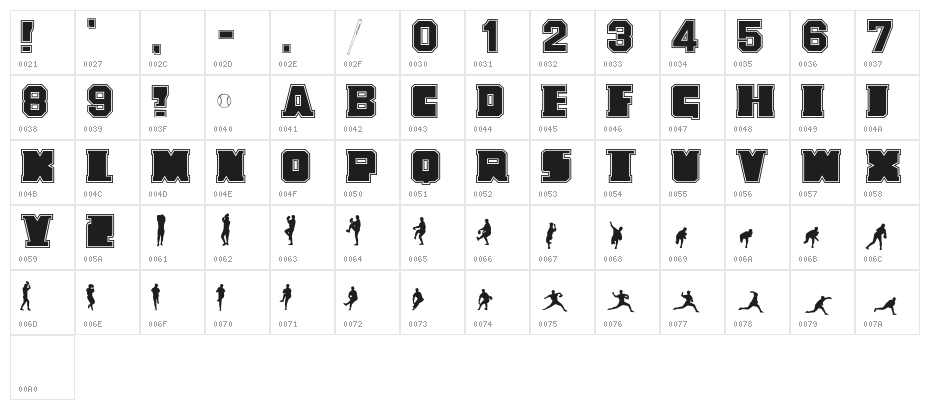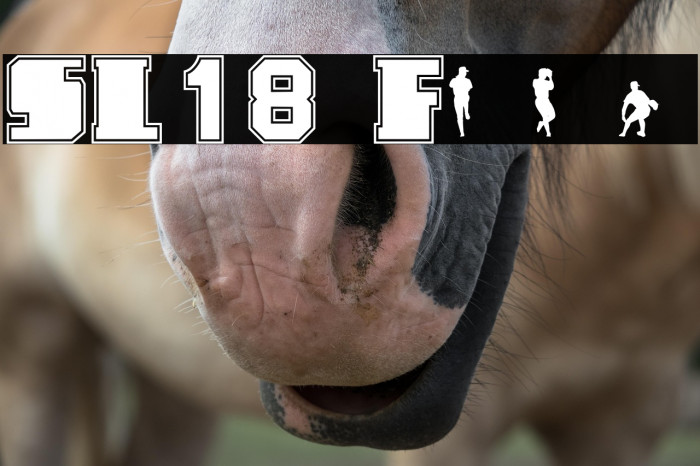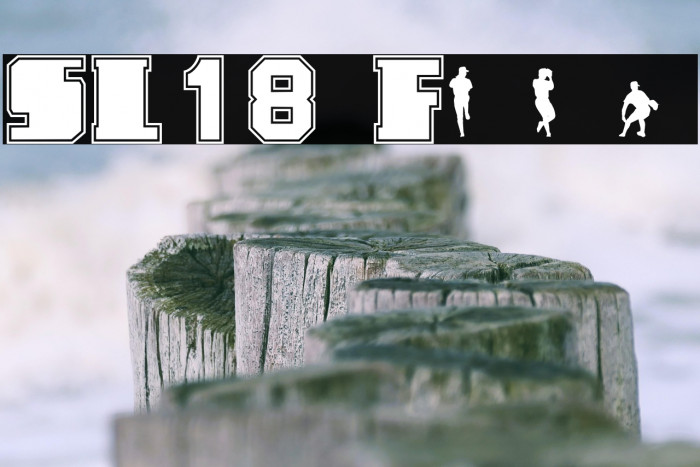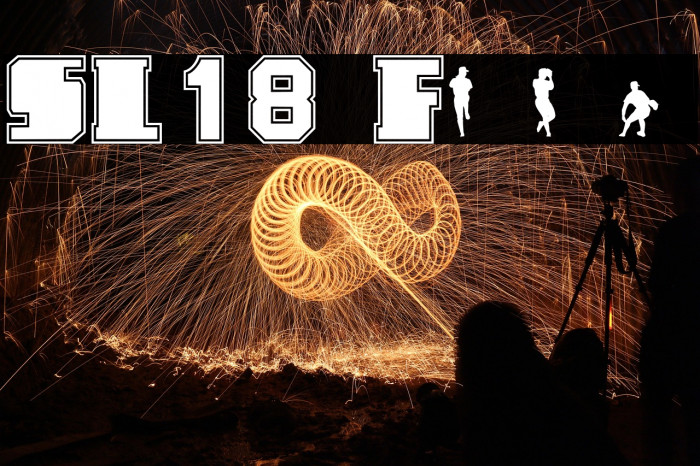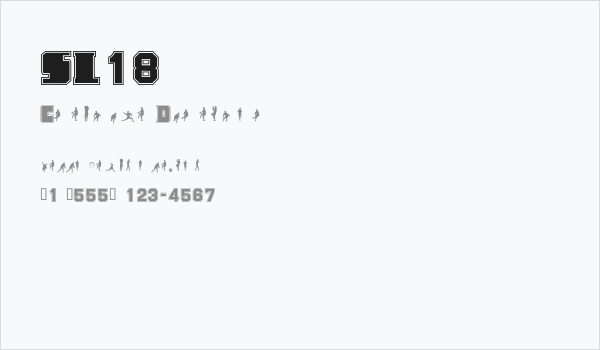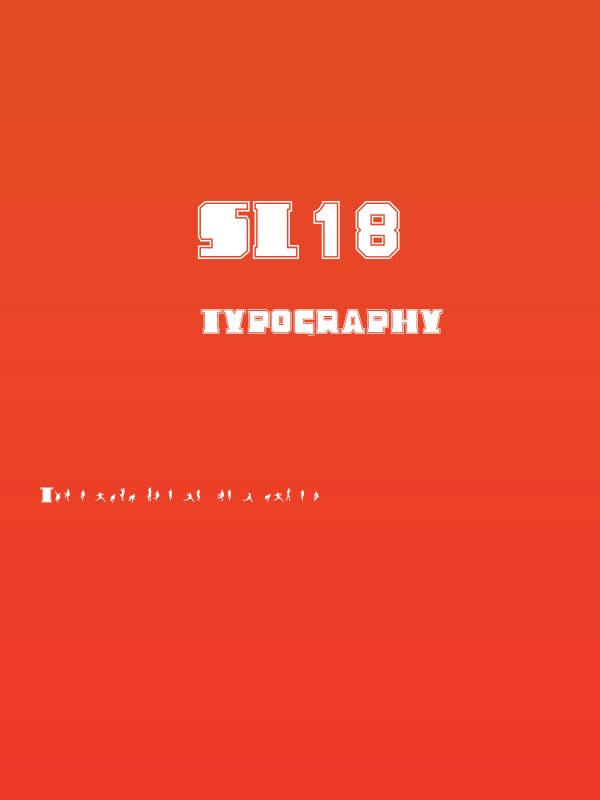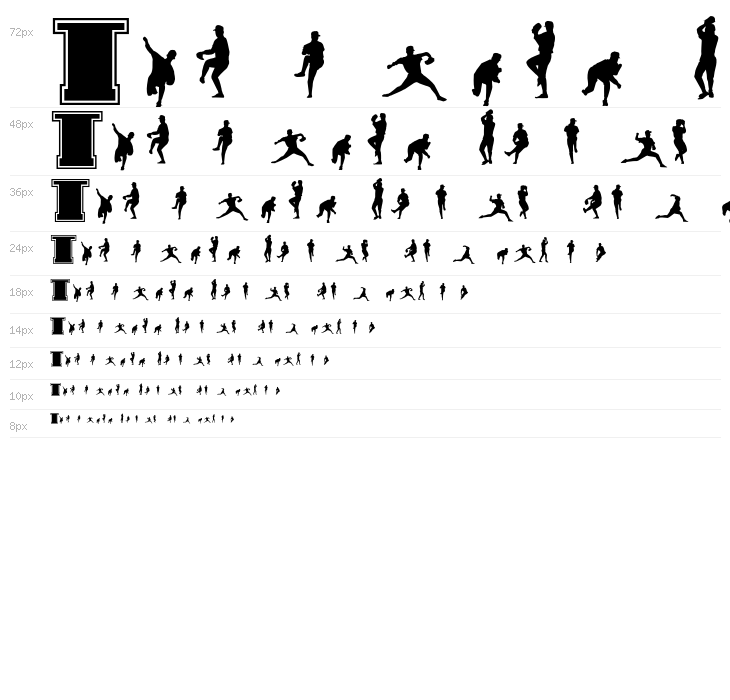
SL18 Font
SL18 Description
This font features bold, blocky characters with a strong, athletic aesthetic. Each letter and number is outlined with a thick border, giving it a three-dimensional appearance. The design is reminiscent of sports jerseys, making it ideal for projects that require a dynamic and energetic feel. The uppercase letters are particularly striking, with a uniform height and width that ensures readability. The numbers follow the same style, maintaining consistency across the font. Special characters are included, matching the bold and impactful style of the alphanumeric characters.
| Overall Style | Sporty, Energetic, Bold |
| Proposed Projects | Ideal for sports team branding, event posters, and athletic apparel design. |